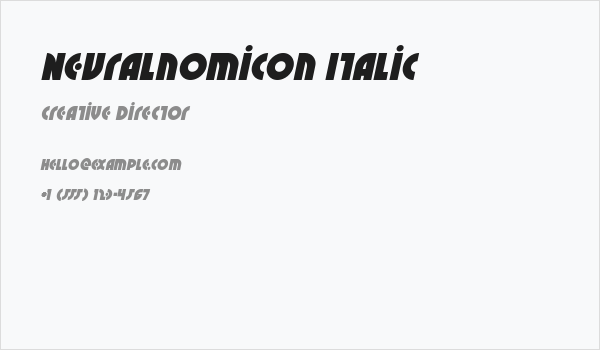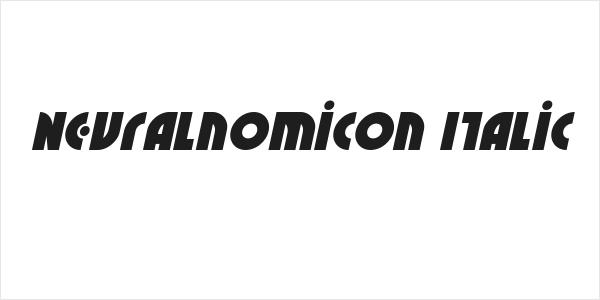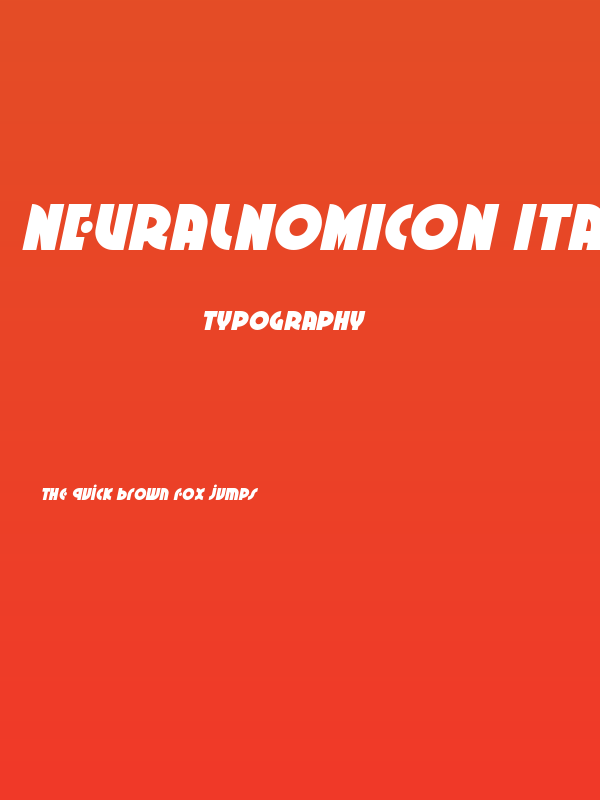
Neuralnomicon Italic Font
Neuralnomicon Italic Description
This font features a bold and dynamic design with a strong geometric influence. The characters are thick and slightly slanted, giving them a sense of movement and energy. The use of circular cutouts within the letters adds a unique and futuristic touch, making it stand out as a modern and innovative typeface. The uppercase and lowercase letters maintain a consistent style, with the lowercase mirroring the uppercase in form but with a slightly more compact appearance. The numerals and special characters follow the same bold and geometric design, ensuring a cohesive look across all elements.
| Proposed Projects | Ideal for sci-fi themed projects, modern branding, technology-related designs, and eye-catching headlines. |